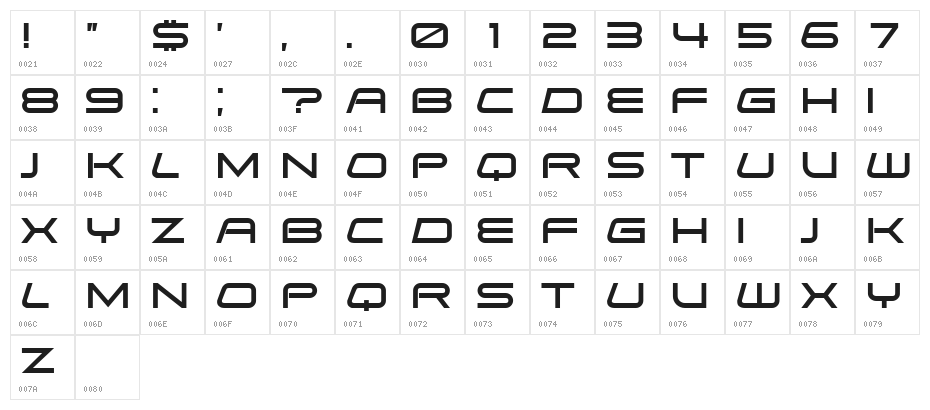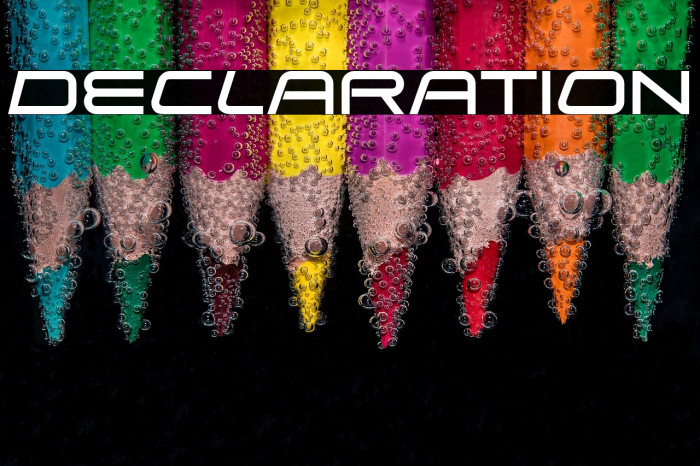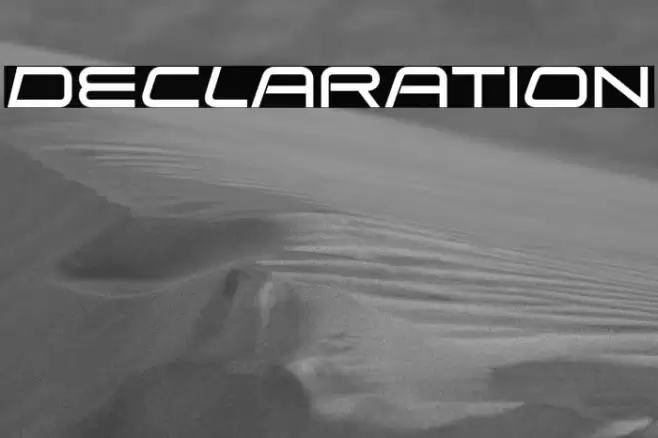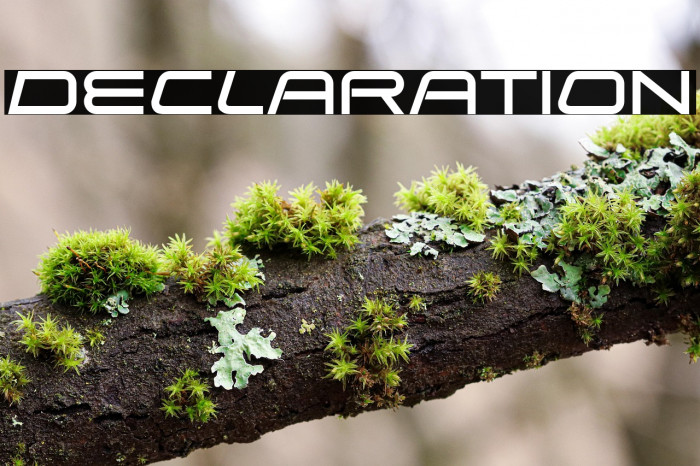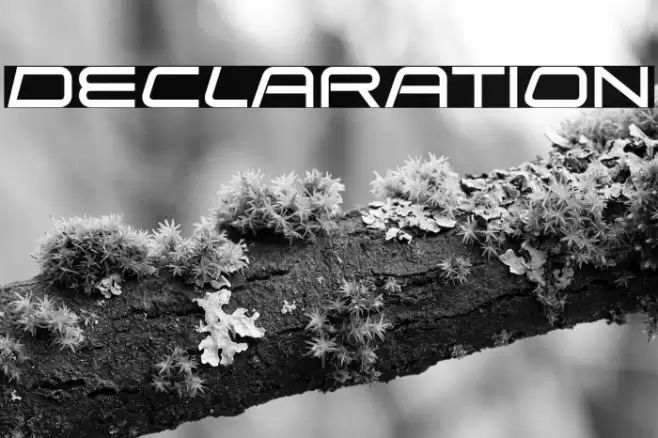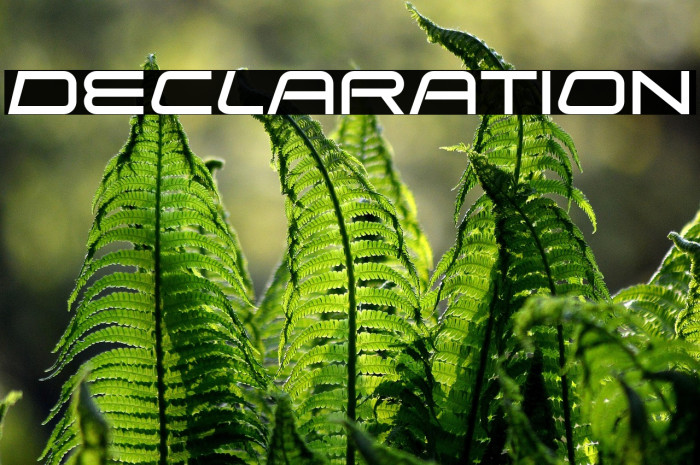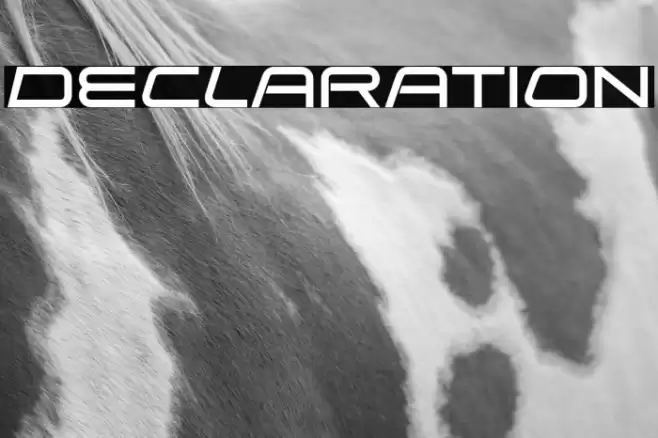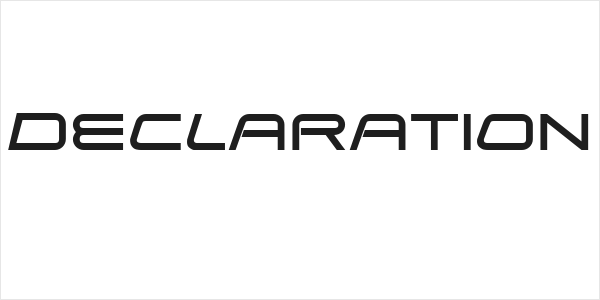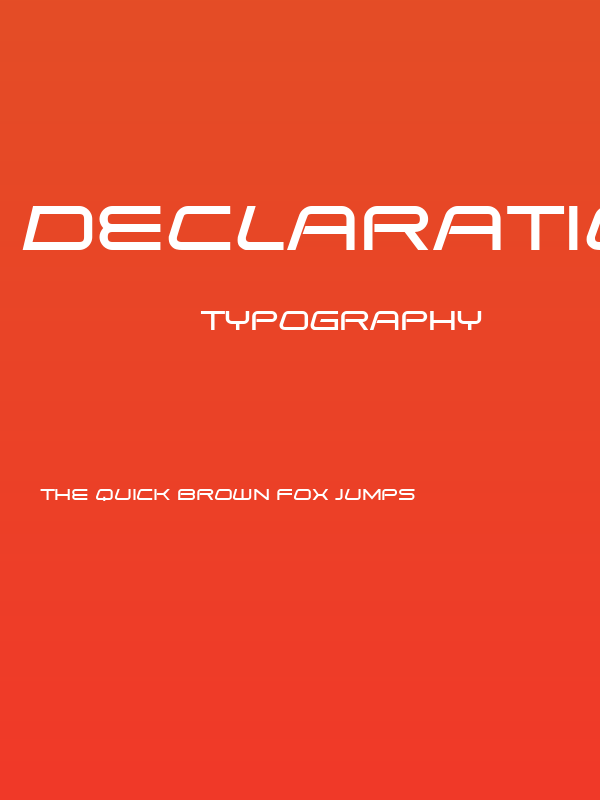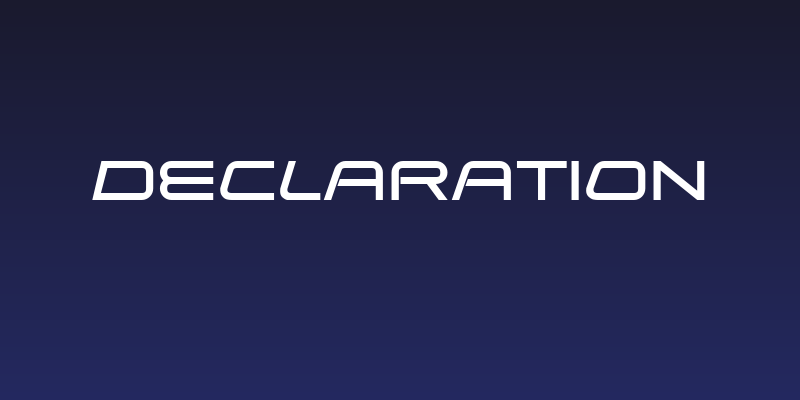
Declaration Font
Declaration Description
This font features a futuristic and geometric design with a distinctly modern aesthetic. The characters are constructed with clean, straight lines and sharp angles, giving them a sleek and streamlined appearance. The uppercase letters are bold and commanding, while the lowercase letters maintain a consistent style that complements the overall design. The numerals are equally well-crafted, with a uniform height and width that ensures readability. Special characters are included, maintaining the font's cohesive look. This typeface is ideal for projects that require a contemporary and tech-savvy feel.
| Proposed Projects | Ideal for technology branding, sci-fi posters, video game interfaces, and modern advertising. |